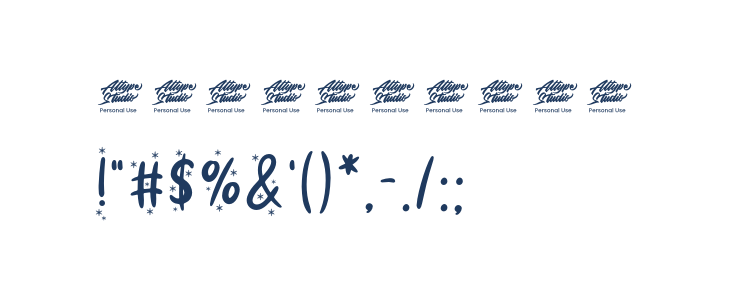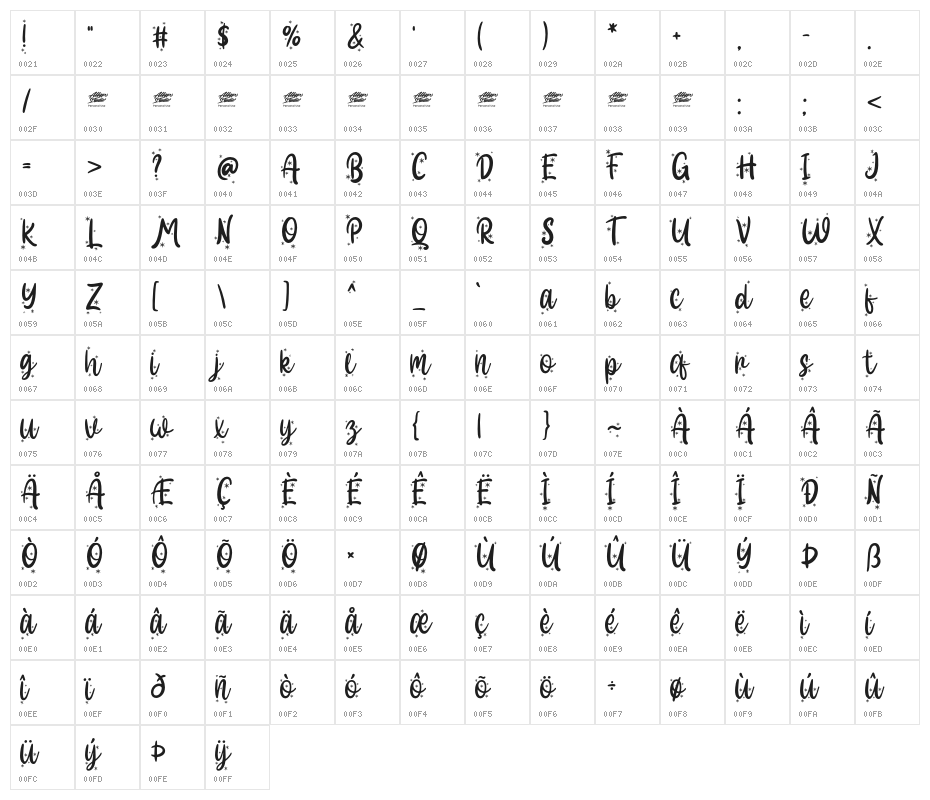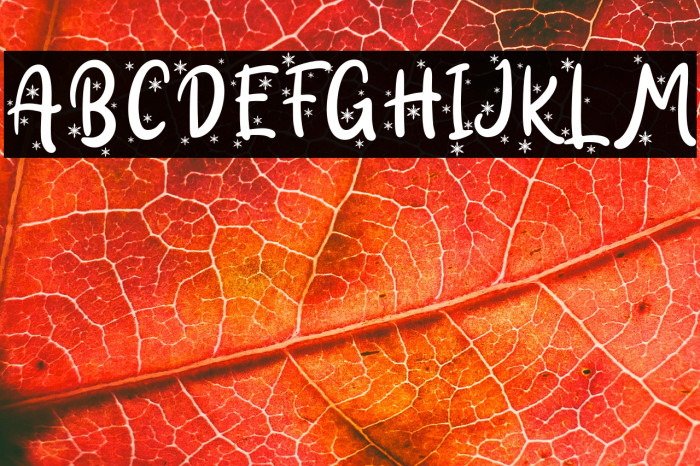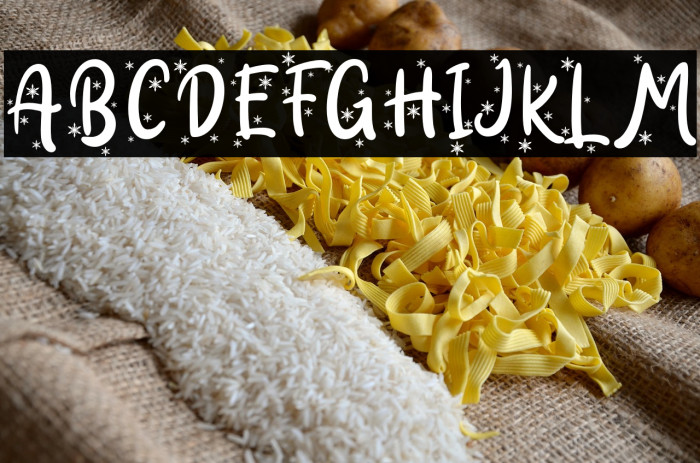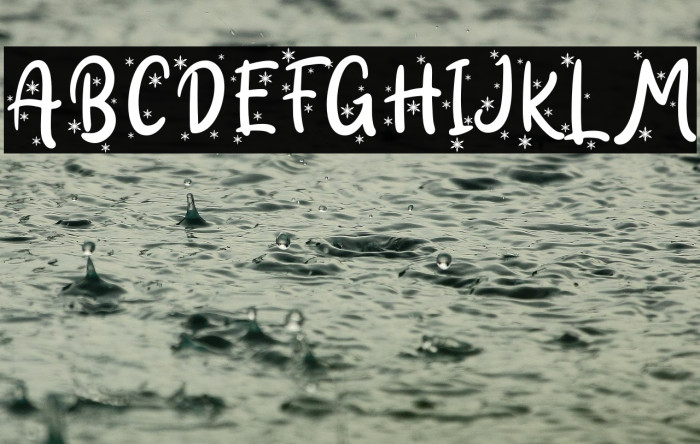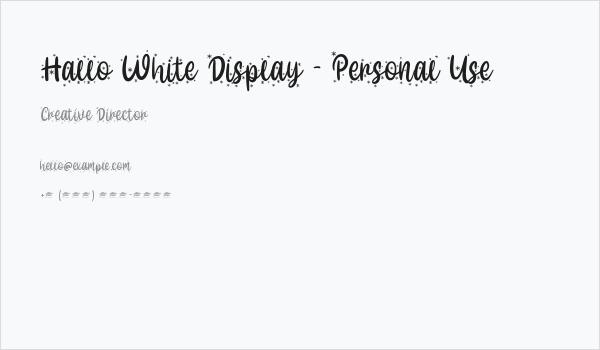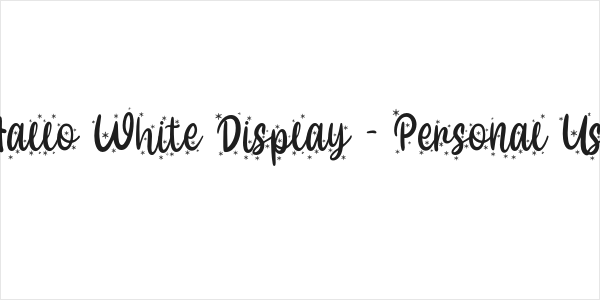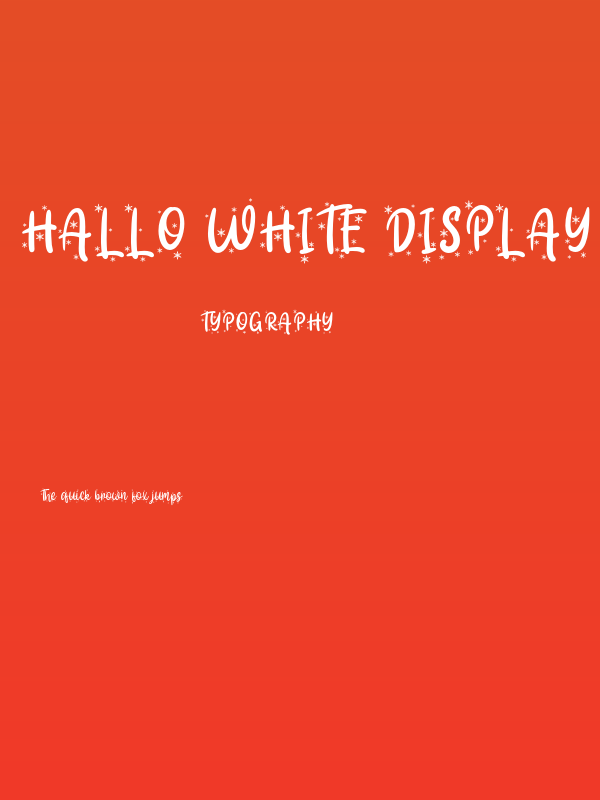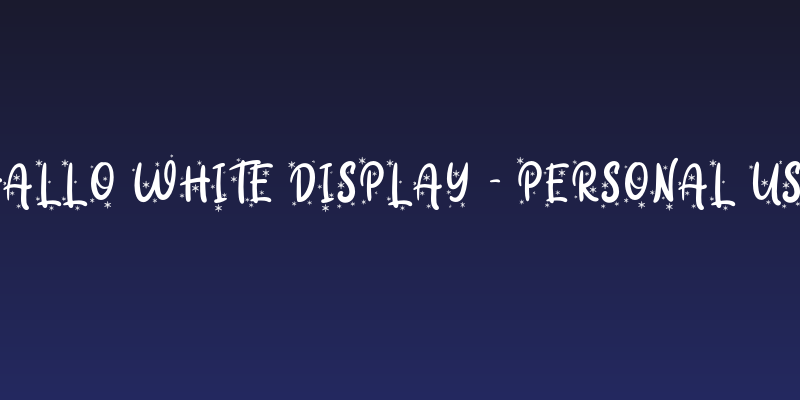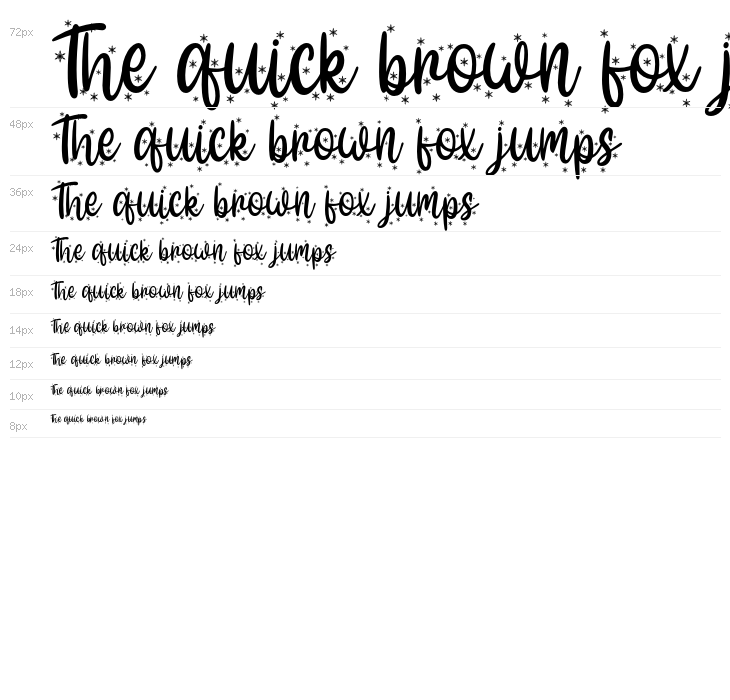
Hallo White Display - Personal Use Font
Hallo White Display - Personal Use Description
This font features a playful and whimsical style, characterized by its flowing script and decorative elements. Each letter is adorned with small star-like accents, adding a touch of magic and charm. The uppercase letters are bold and expressive, while the lowercase letters maintain a consistent flow, enhancing readability. The font includes a full set of numerals and a variety of special characters, making it versatile for different design needs. Its unique style is perfect for projects that require a fun and engaging aesthetic, such as invitations, greeting cards, or playful branding.
| Proposed Projects | Ideal for invitations, greeting cards, playful branding, and decorative projects. |